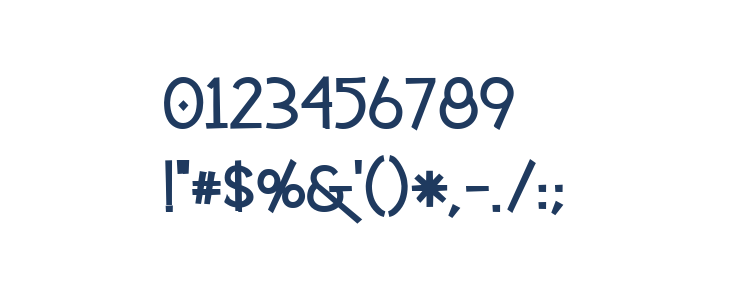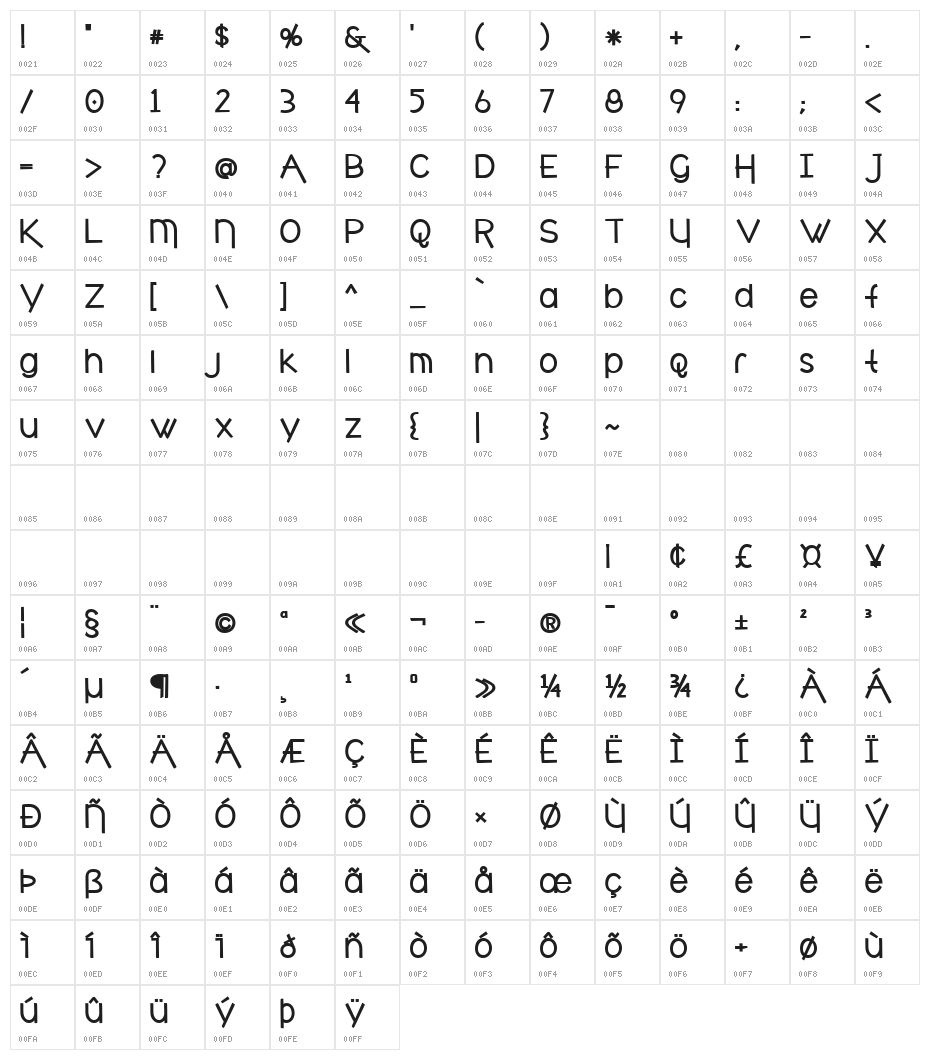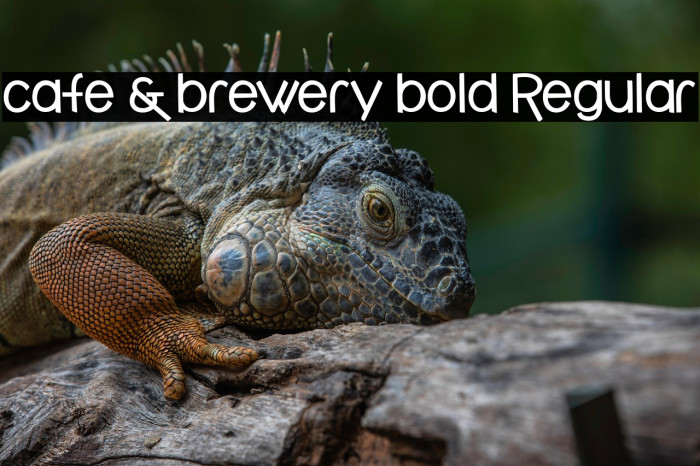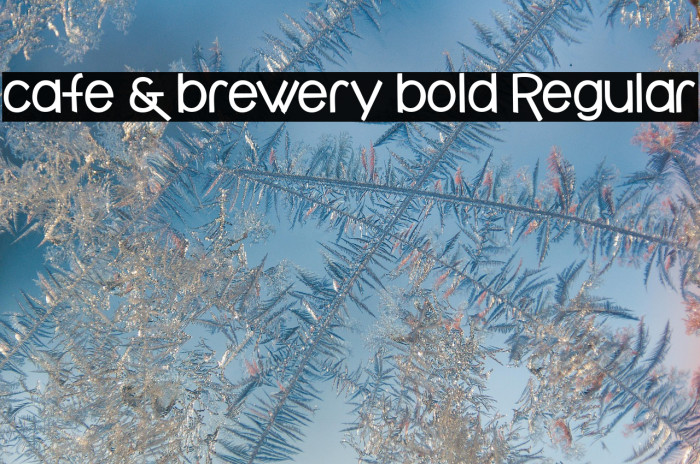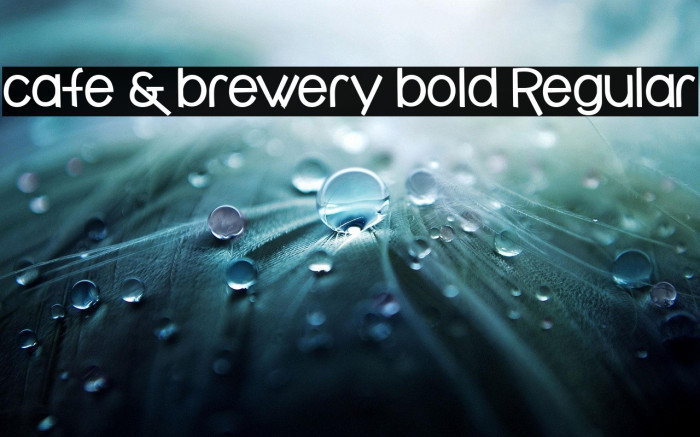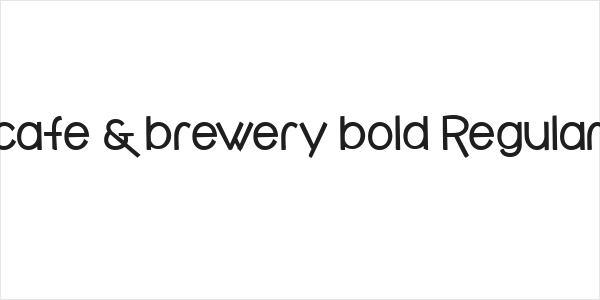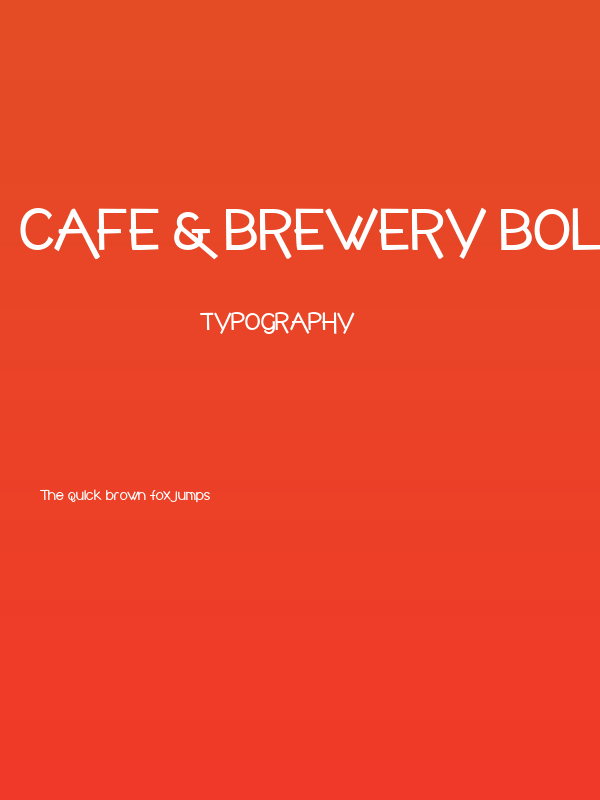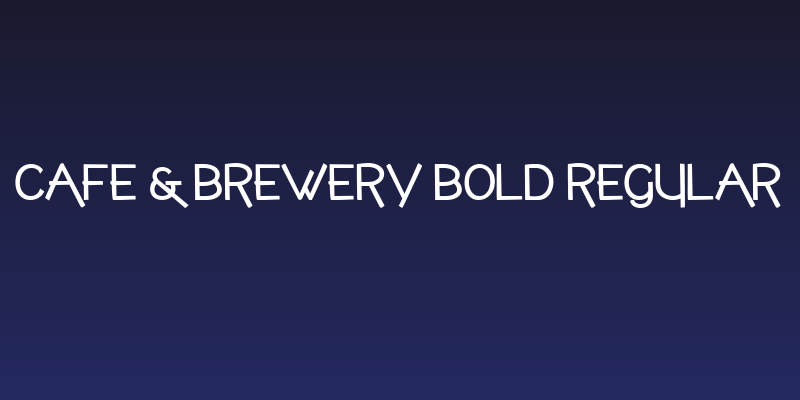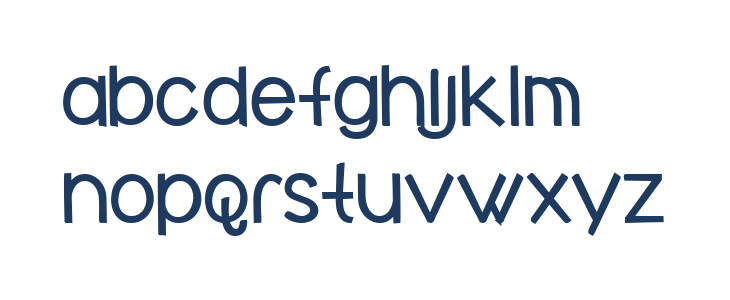
cafe & brewery bold Regular Font
cafe & brewery bold Regular Description
This font features a playful and modern design with a unique blend of geometric and organic shapes. The uppercase letters have a distinctive angularity, while the lowercase letters maintain a more rounded and approachable appearance. The numerals are bold and easily readable, making them suitable for various applications. Special characters are creatively designed, adding to the font's overall charm. The font's style is both contemporary and versatile, making it ideal for branding, advertising, and creative projects.
| Proposed Projects | Ideal for branding, advertising, packaging, and creative projects. |